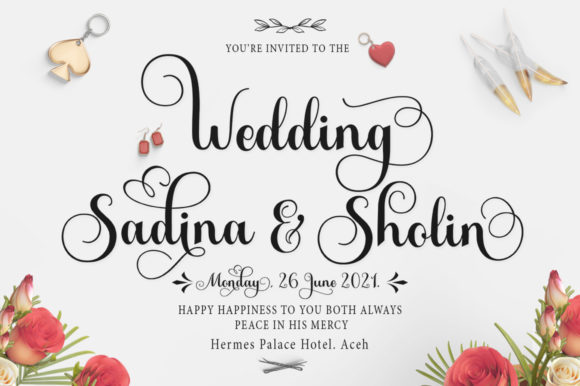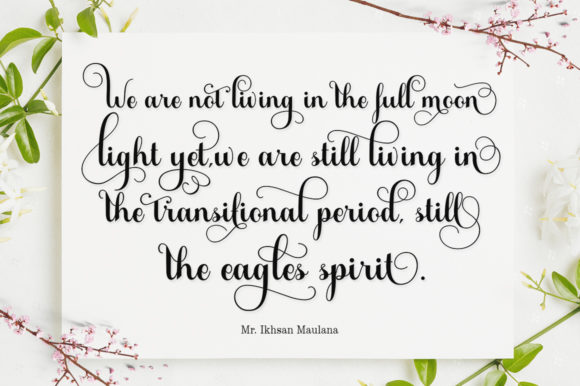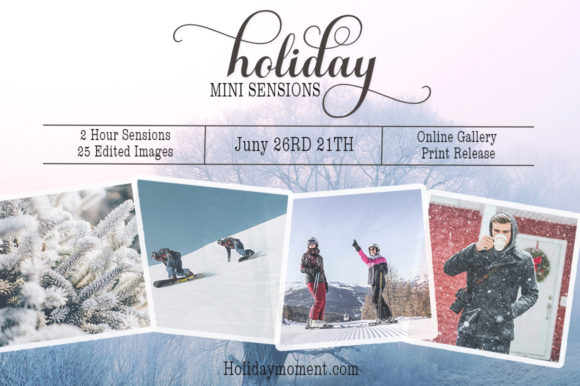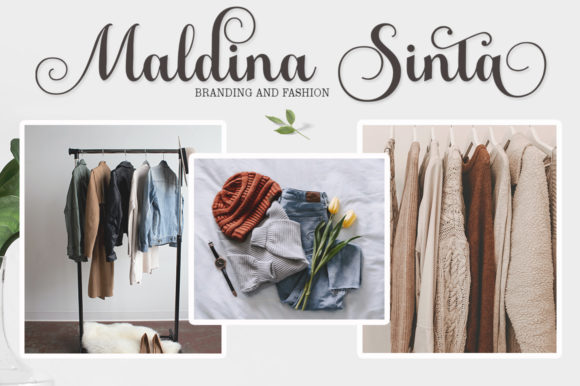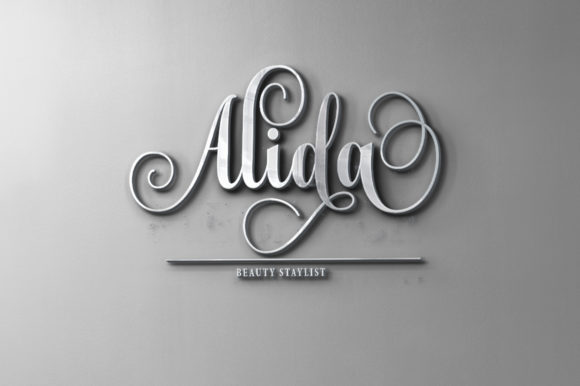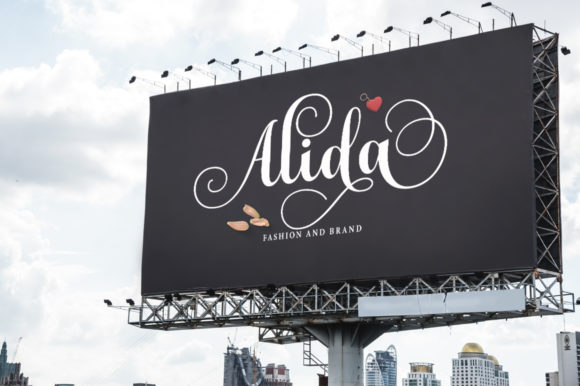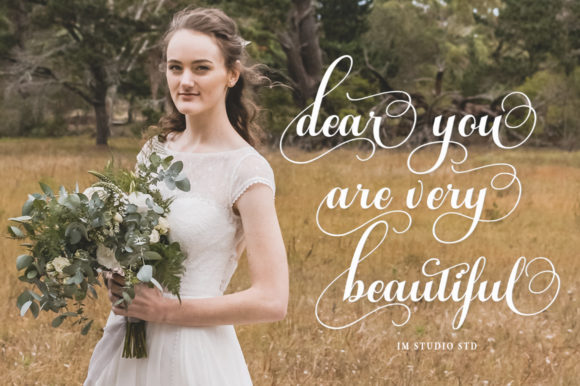
Baby Algutta Font
About Baby Algutta Font
Baby Algutta is a modern and romantic handwritten font. Featuring all round and sweet characters, this font will look stunning on any poster flyer or print. Baby Algutta is PUA encoded which means you can access all of the glyphs and swashes with ease!